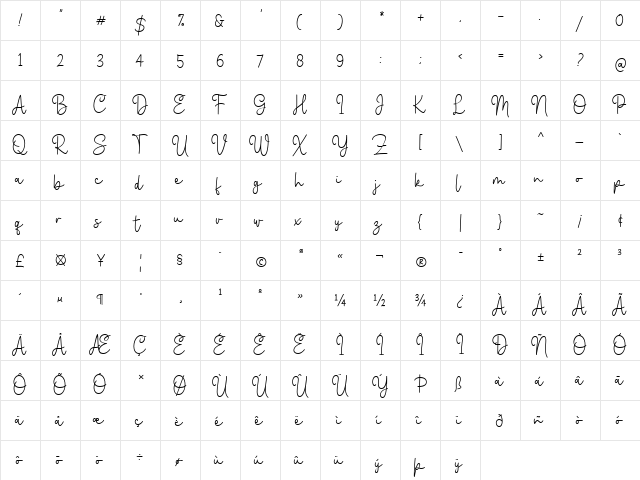
Romansh Regular
Design Context for Romansh Typeface
Romansh is a composed and adaptable typeface that performs quietly and consistently across a wide range of design contexts.